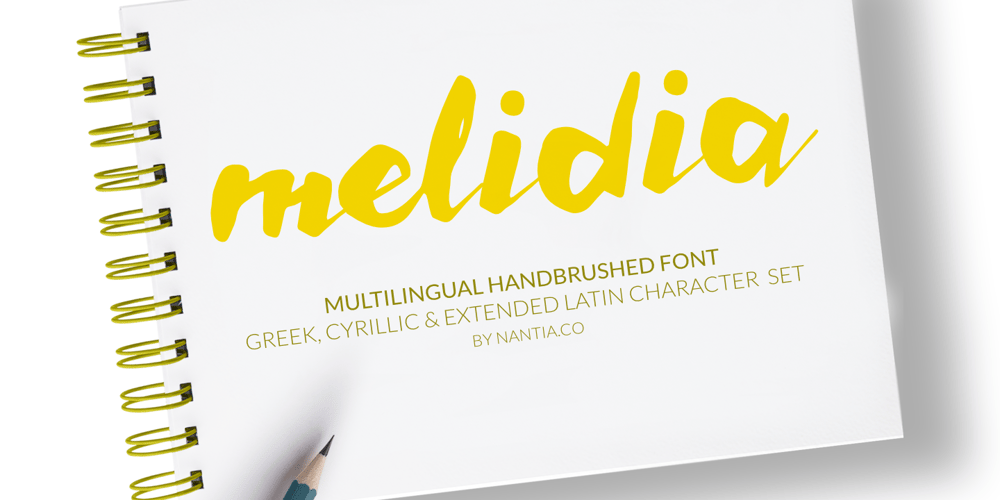
Melidia Font Family was designed by Konstantina Louka and published by Nantia.co. Melidia contains 1 styles and family package options. My first encounter with brush lettering that has turned into a lovely bold font. I really loved the process of hand lettering with ink and I am so pleased how it developed into a lovely font. Melidia Font it’s a multilingual lettering font with Greek (of course), Cyrillic and Extended Latin characters and diacritics. The style of the font is perfect for your modern graphic design needs. For all the typography lovers, this typeface is a must-have.Also, Melidia Font is the ideal typeface for the food industry, for food branding, for restaurant menus and packaging. Additionally, you can use Melidia Font for a lovely wedding and baby shower invitation design. Especially if you are looking for a font for Instagram quote posts or any other social media content, this typeface is for you!